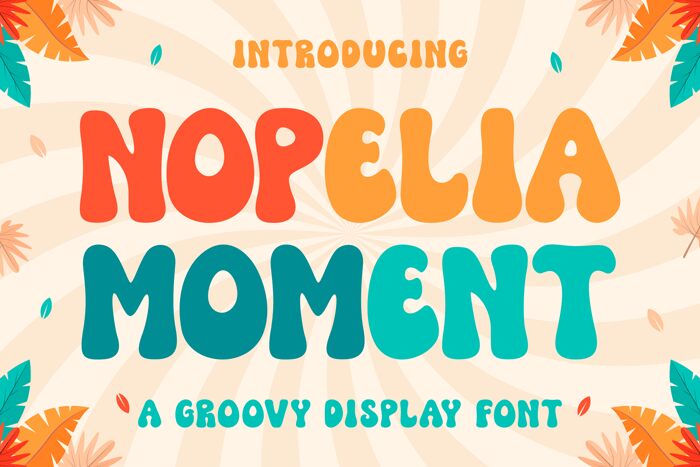
NOPELIA MOMENT, designed by Hoperative, is a groovy display font that demands attention. With its extra-bold weight and retro-inspired curves, NOPELIA MOMENT is perfect for projects that call for a bold and playful touch. Try it on posters, album covers, or packaging designs to really make your message pop! Its unique style also makes it a great choice for branding or logo design where you want to stand out from the crowd. With NOPELIA MOMENT, your words will never be ignored.